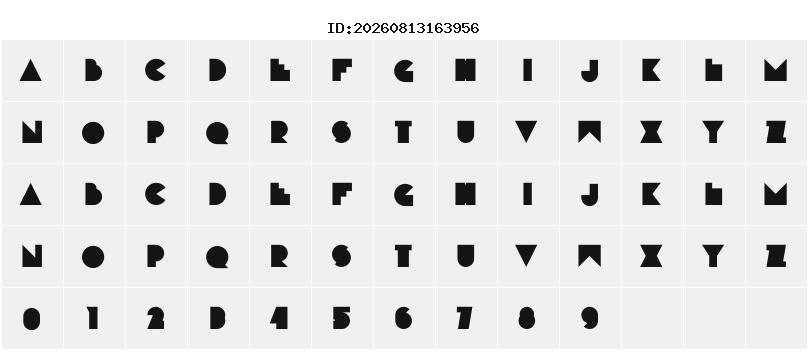
• Font Name: RNS Bobo Dylan
• Full Font Name: RNS Bobo Dylan
• Designer: Yorlmar Campos
• Manufacturer: Yorlmar Campos
About RNS Bobo Dylan.otf
RNS Bobo Dylan.otf is a modern, elegant sans-serif font designed for ultimate readability and visual harmony. Perfect for branding, headlines, web design, and print materials.